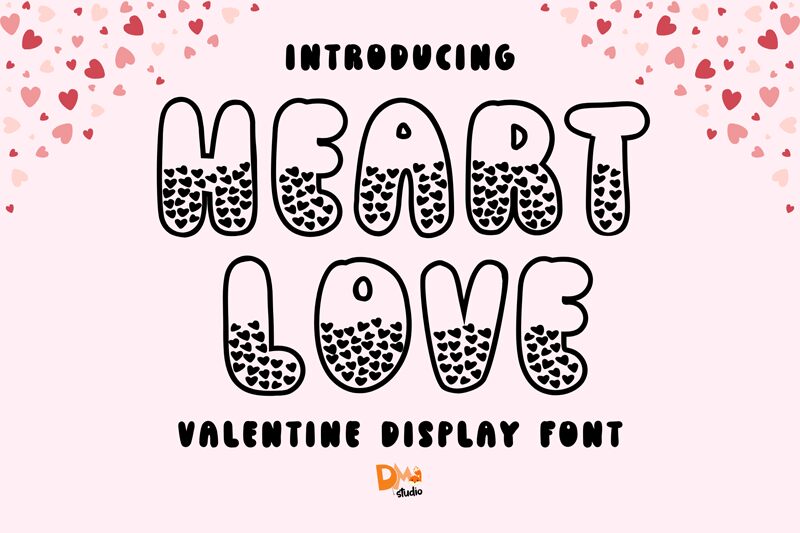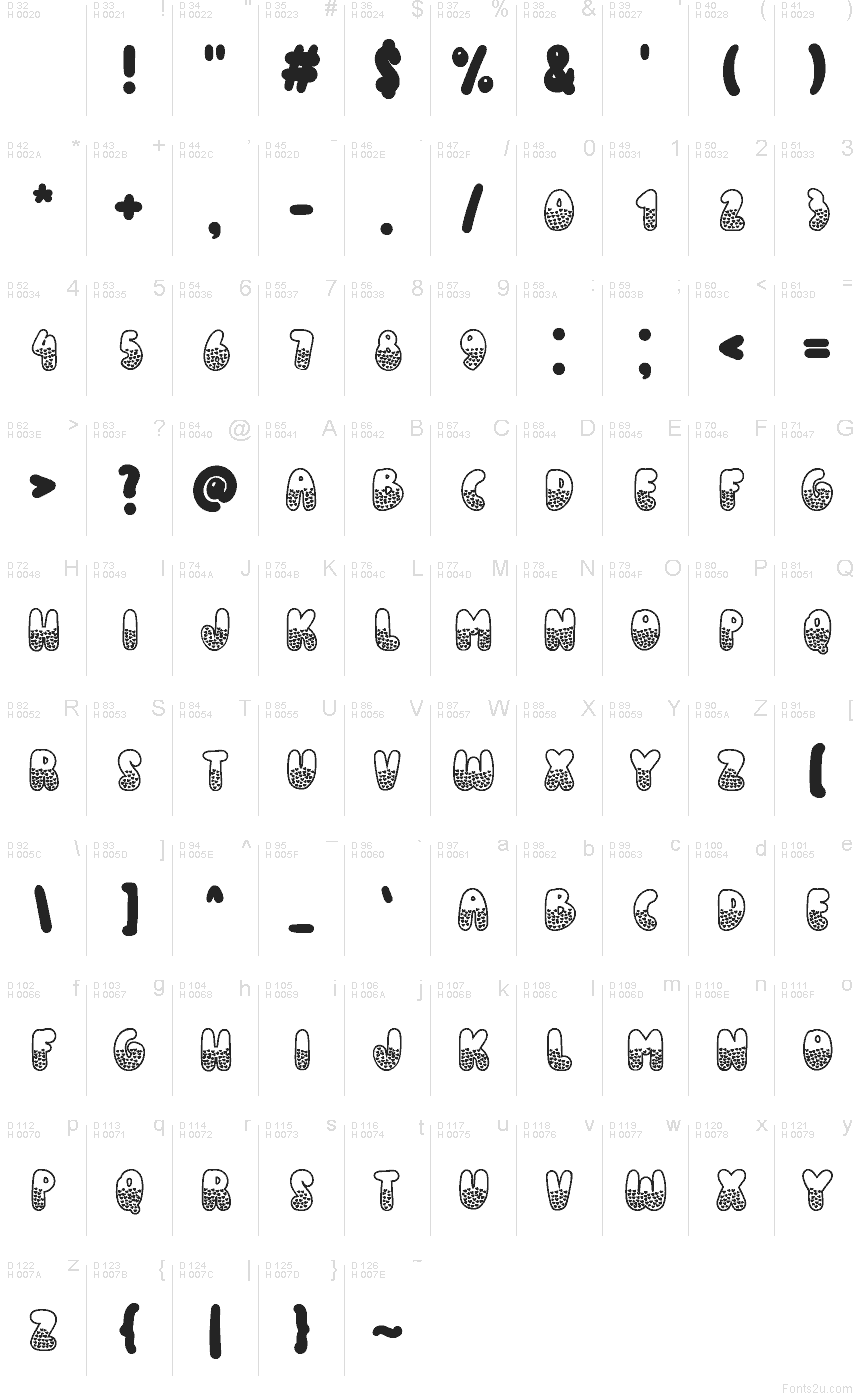
Heart Love font by DM Letter Studio - Dimas Prasetyo is a free Valentine decorative display typeface that looks like it was doodled straight into a love note. Each chunky, rounded letter stands tall like a balloon and then melts into a cluster of tiny hearts at the bottom, giving your words a hand-drawn, candy-sweet texture. The outlined strokes keep it light and airy, so even with all those hearts packed in, the letters still read clearly at a glance.
Using Heart Love, it’s easy to build romantic graphics that feel fun rather than cheesy: Valentine cards, classroom printables, kids’ party invites, love-themed Instagram posts, stickers, and playful packaging all suit this free font. It shines at big sizes where the little heart pattern really pops; pair it with a clean sans serif for body text to keep your layouts balanced and readable.